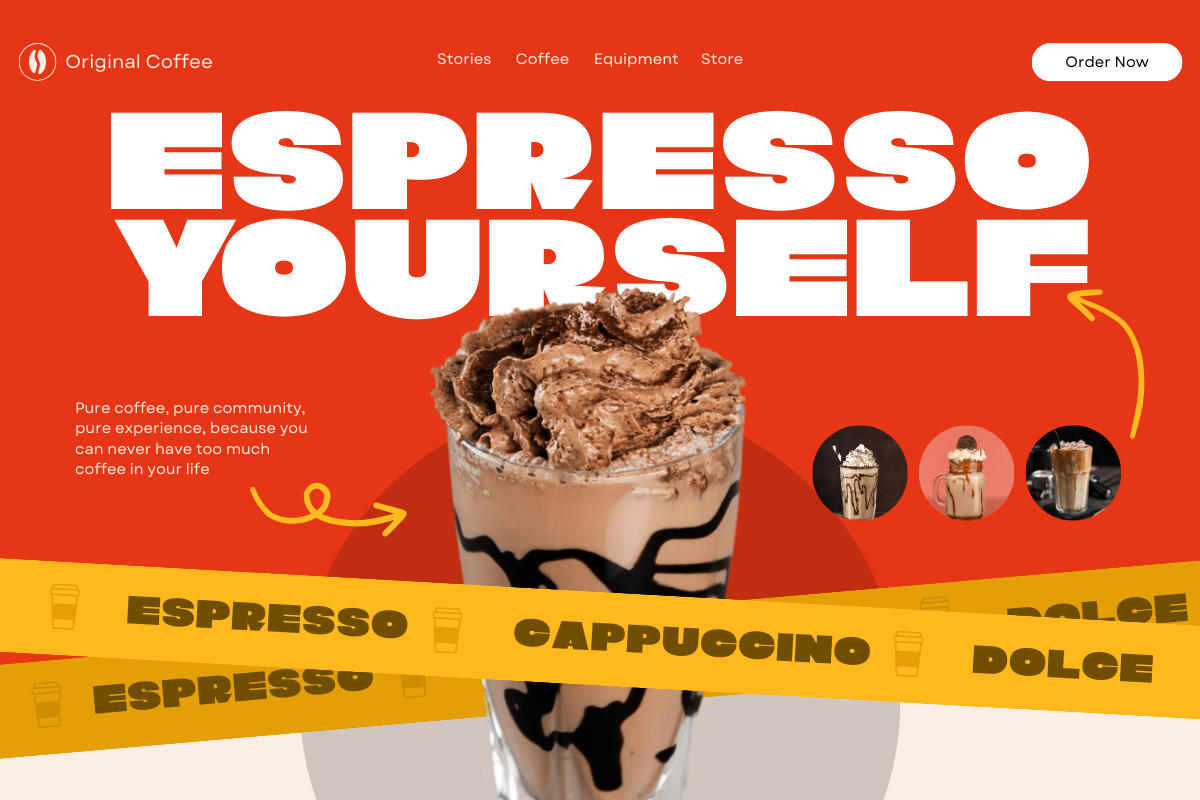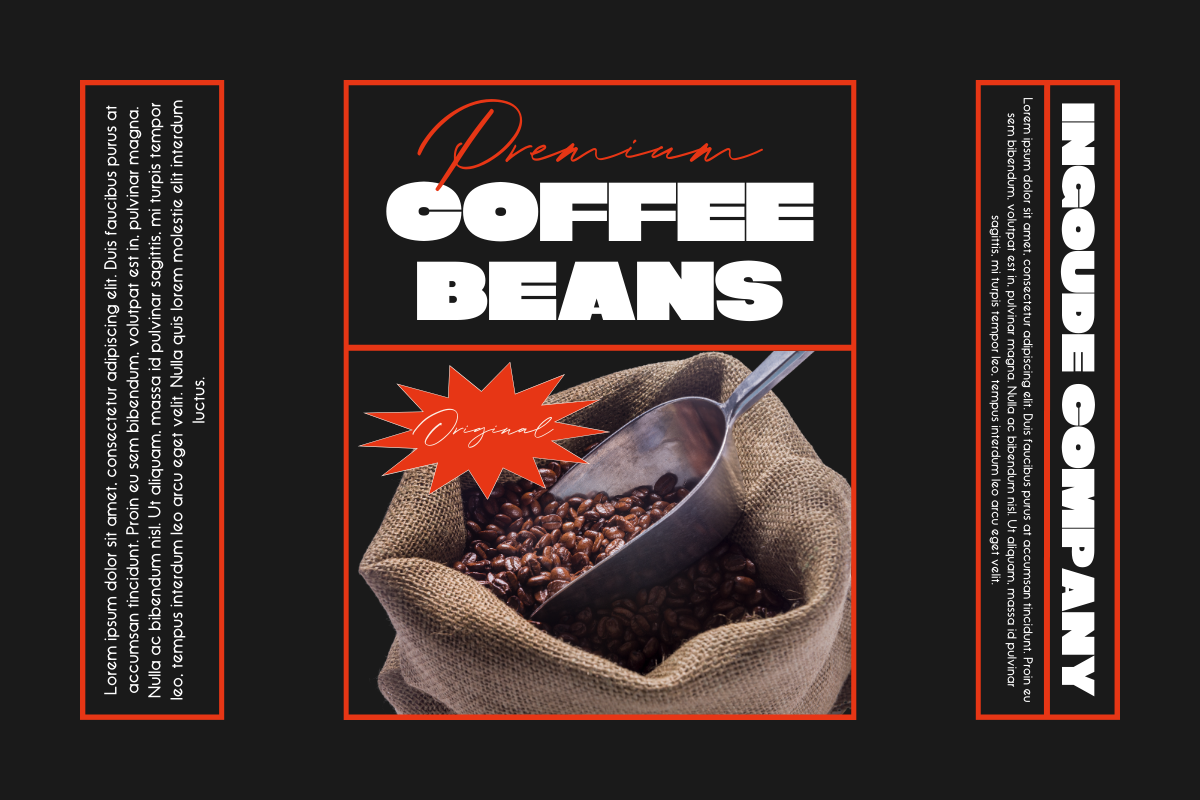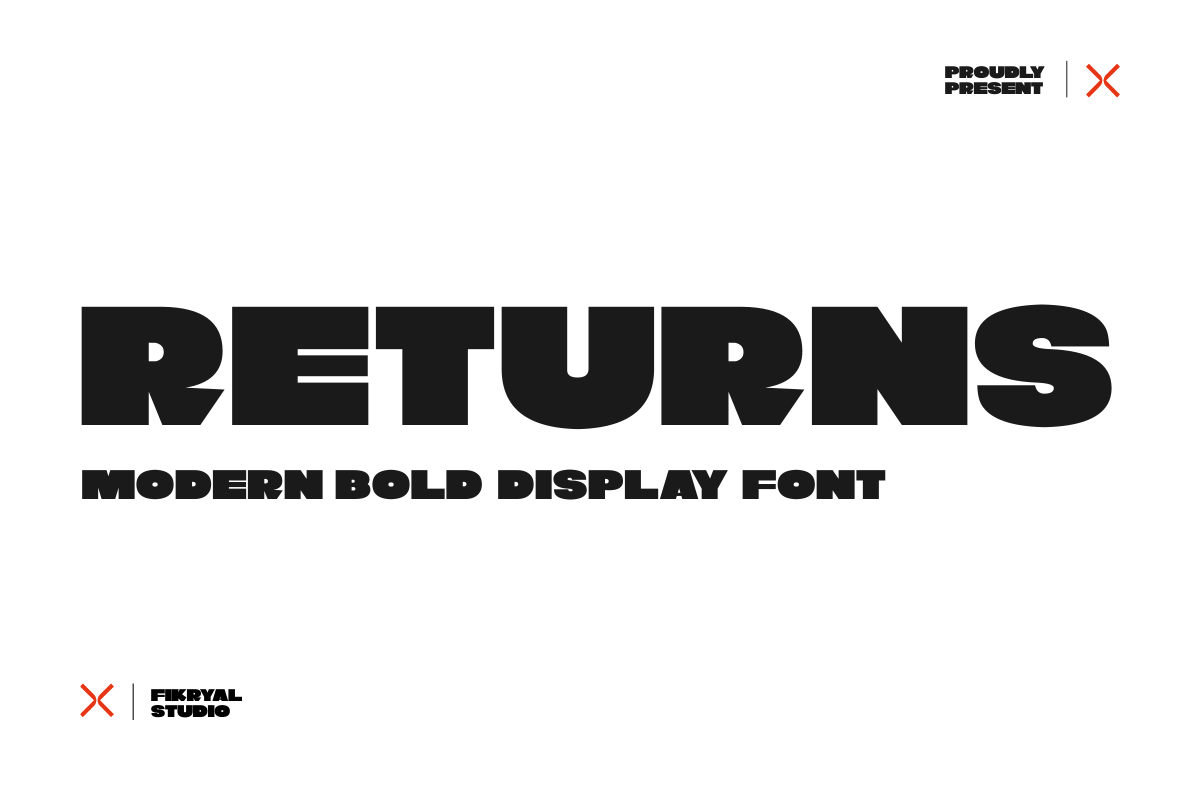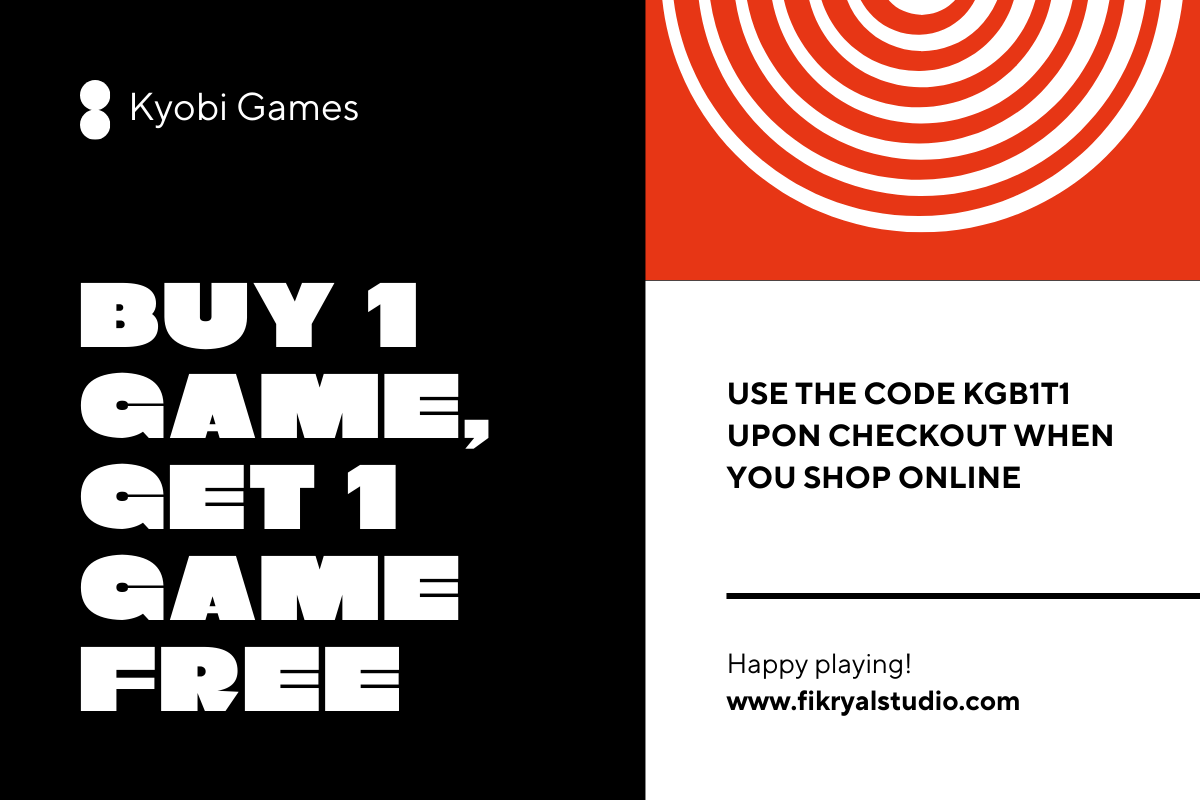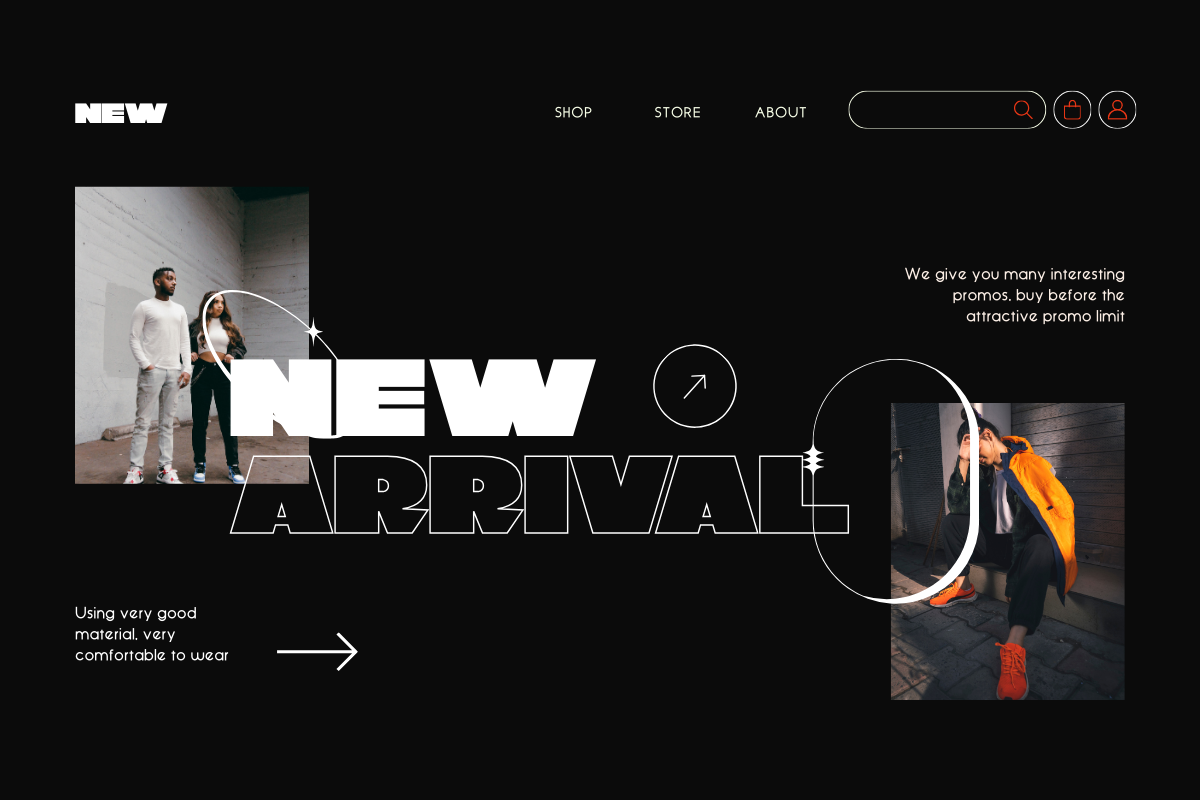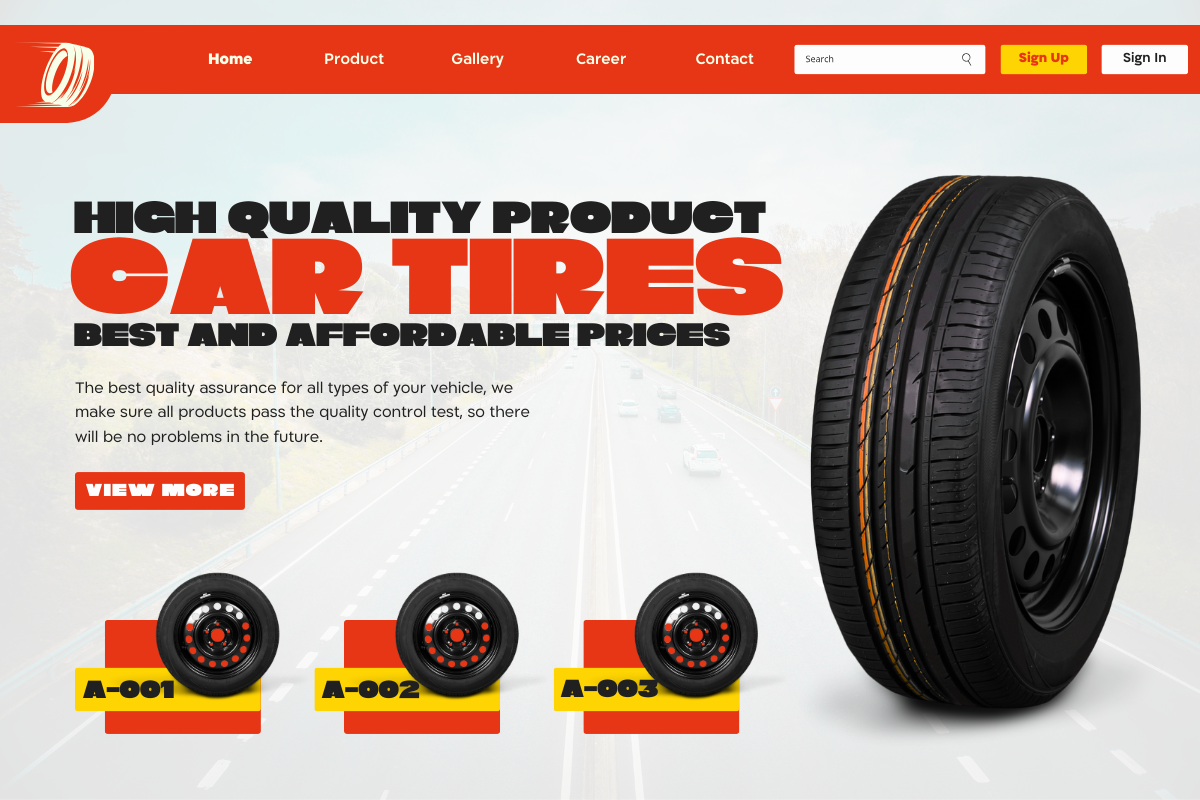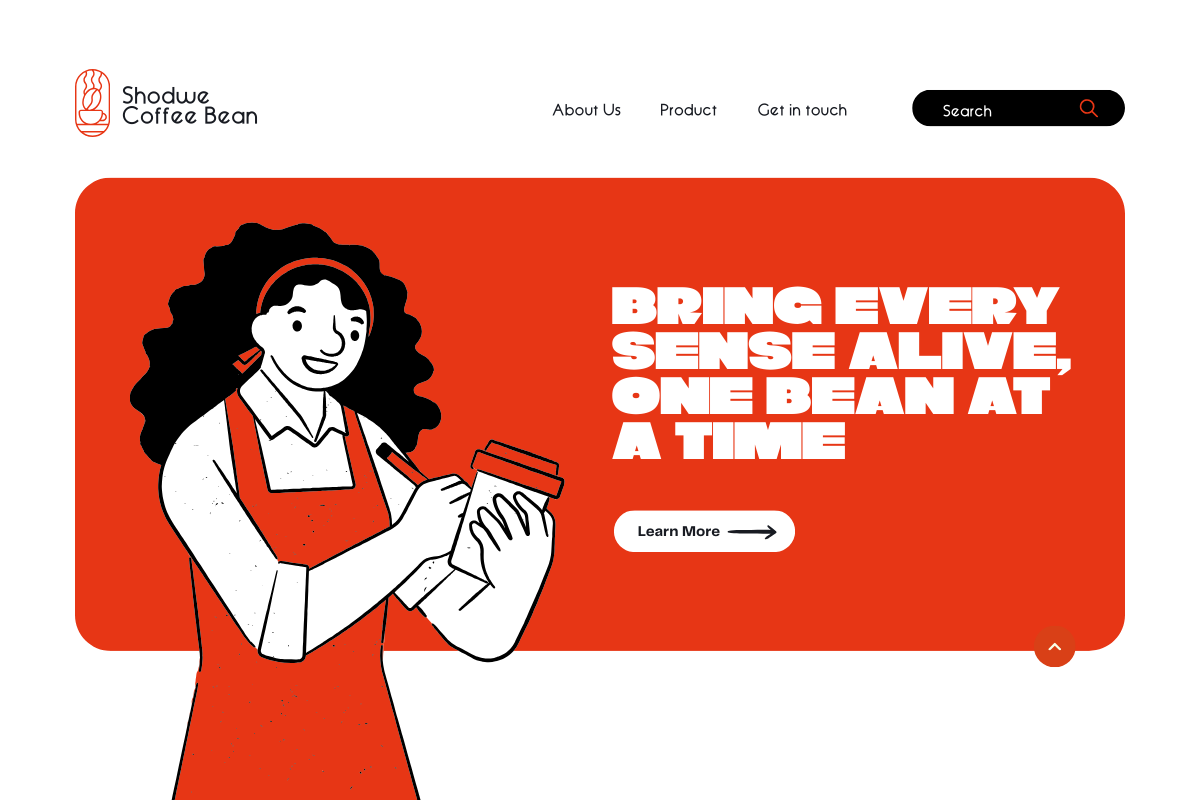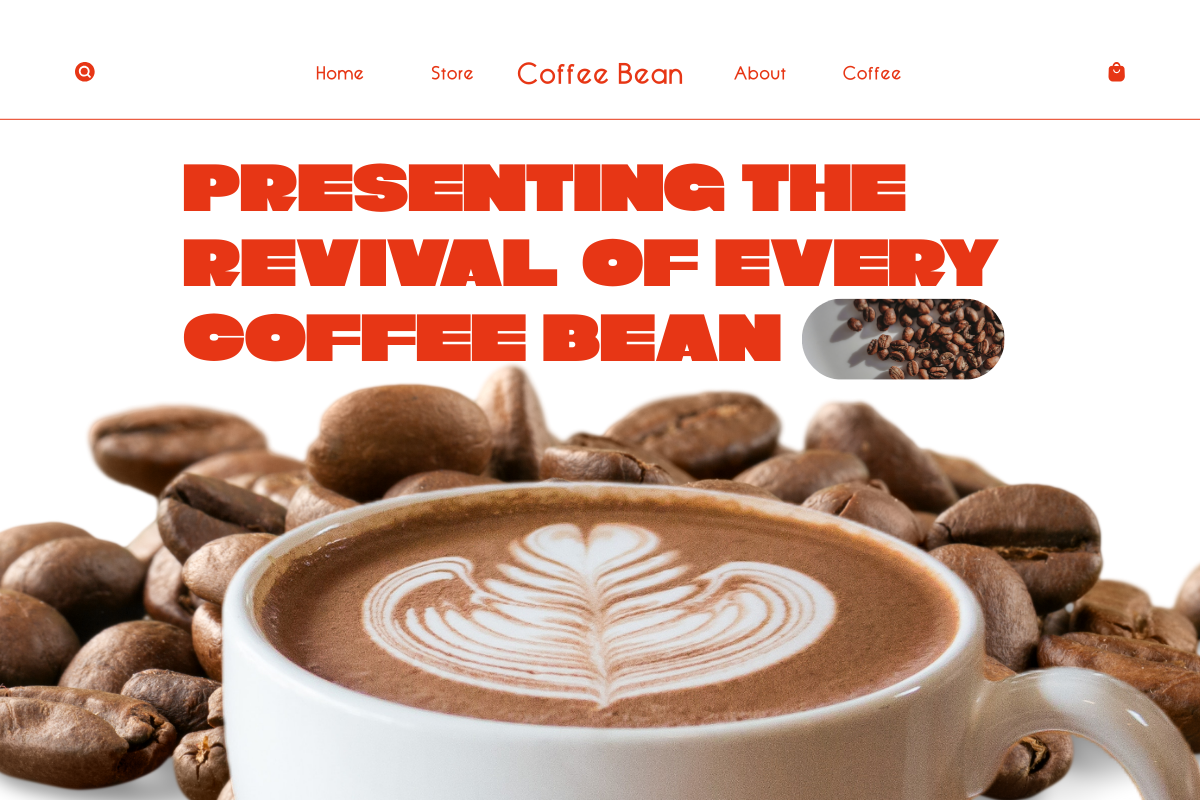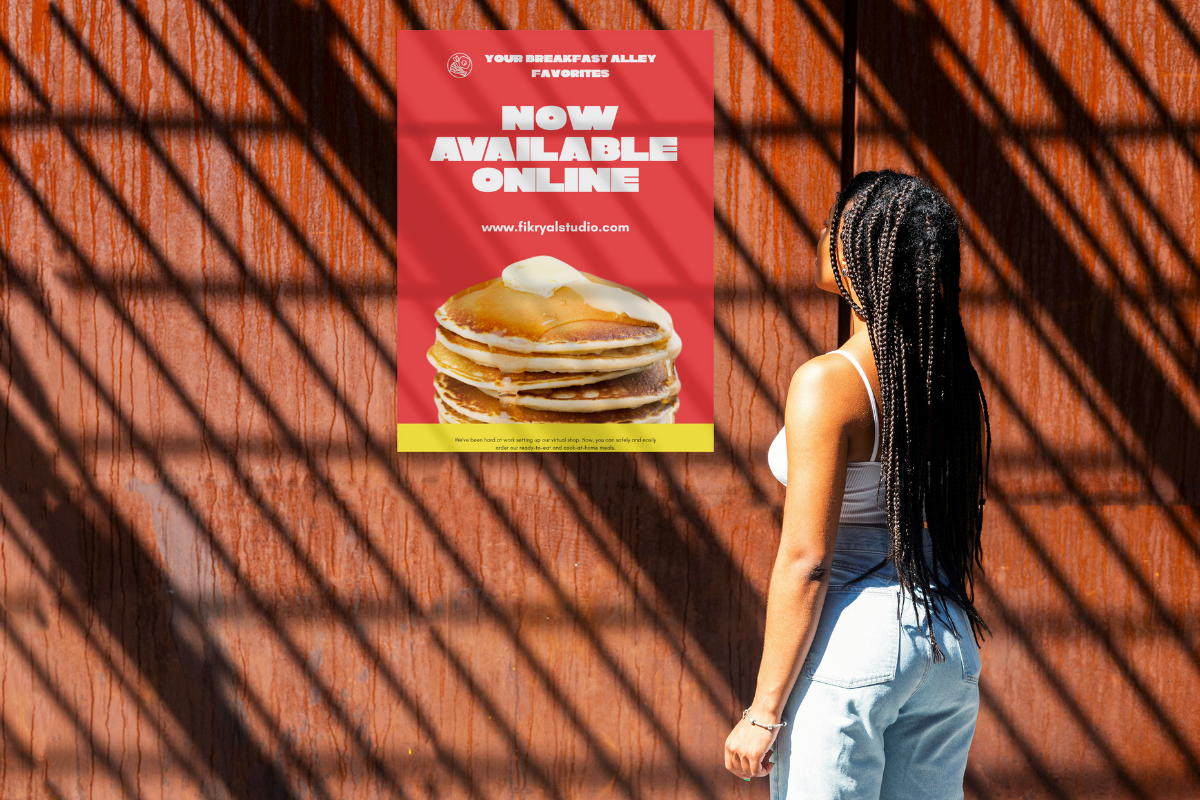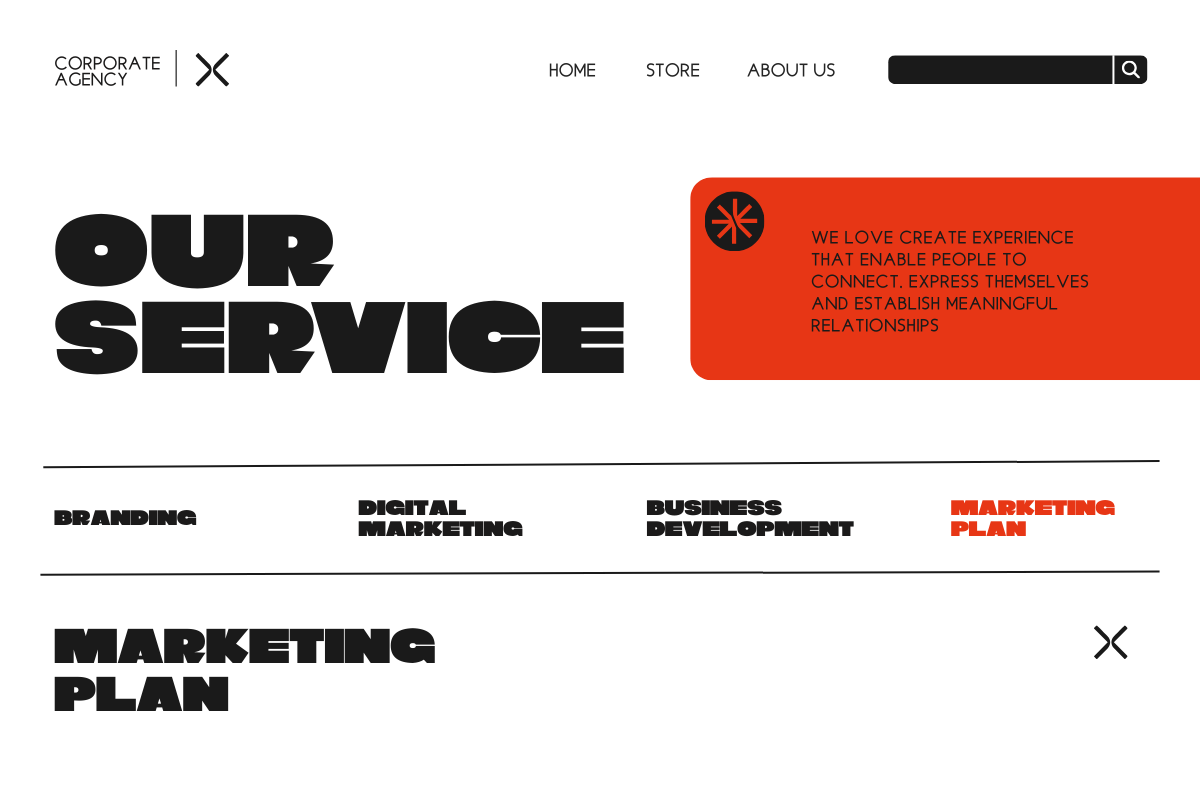
Returns – Bold Display Font
“Return” is a charming and strong display font with bold characters that stand out. Specially created with capital letters to give a firm and authoritative impression. Each letter in “Return” is sculpted with precision, featuring bold lines that clearly define its presence.
Its bold characteristics provide extraordinary visual power, making it ideal for titles that require a statement or striking appearance. Despite this, “Return” maintains its elegance with balanced proportions and a clean design.
With its clarity and boldness, “Return” lends itself to use across a variety of platforms and media, from print to digital design. This font is able to convey messages clearly and effectively, and adds a professional touch to any display.